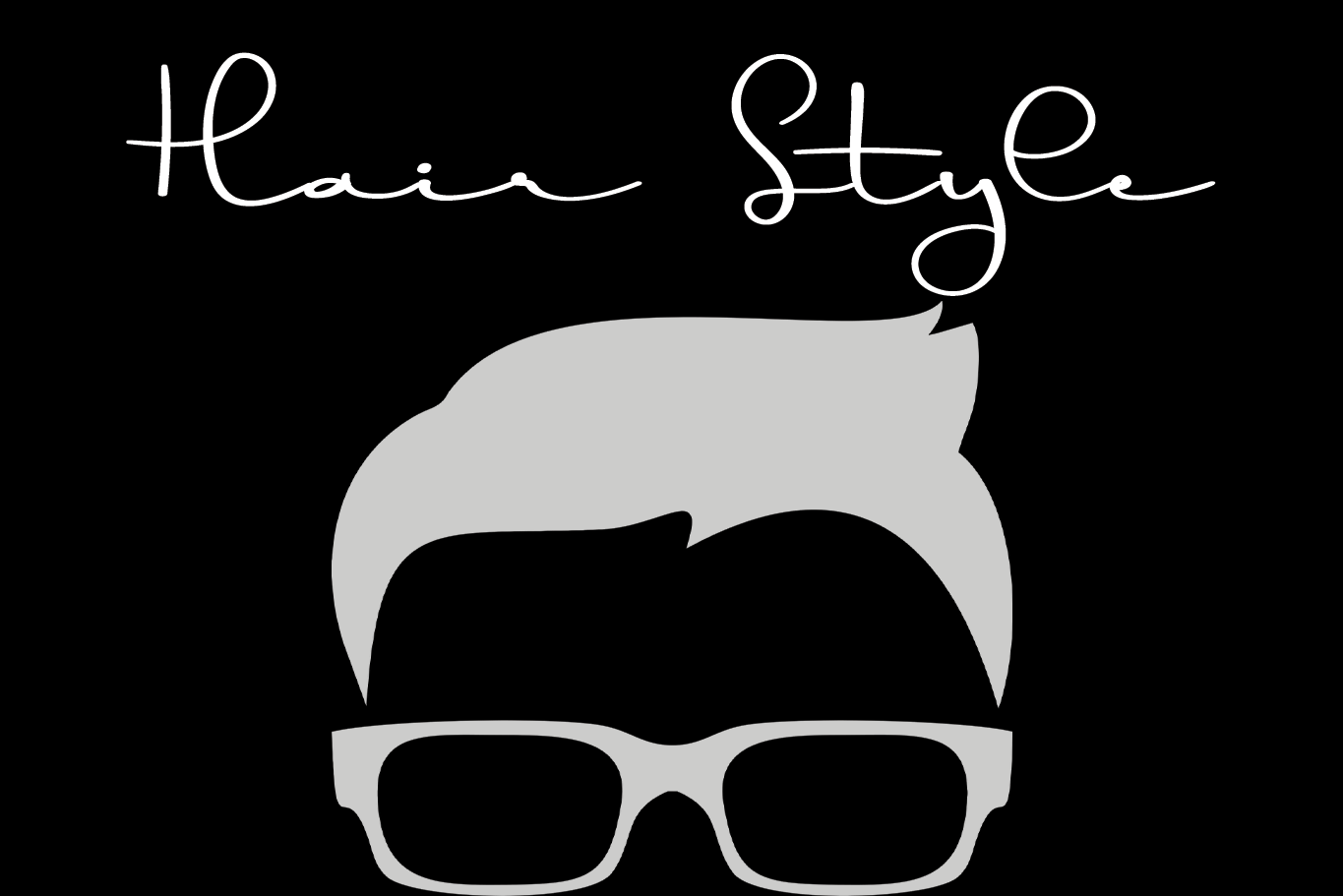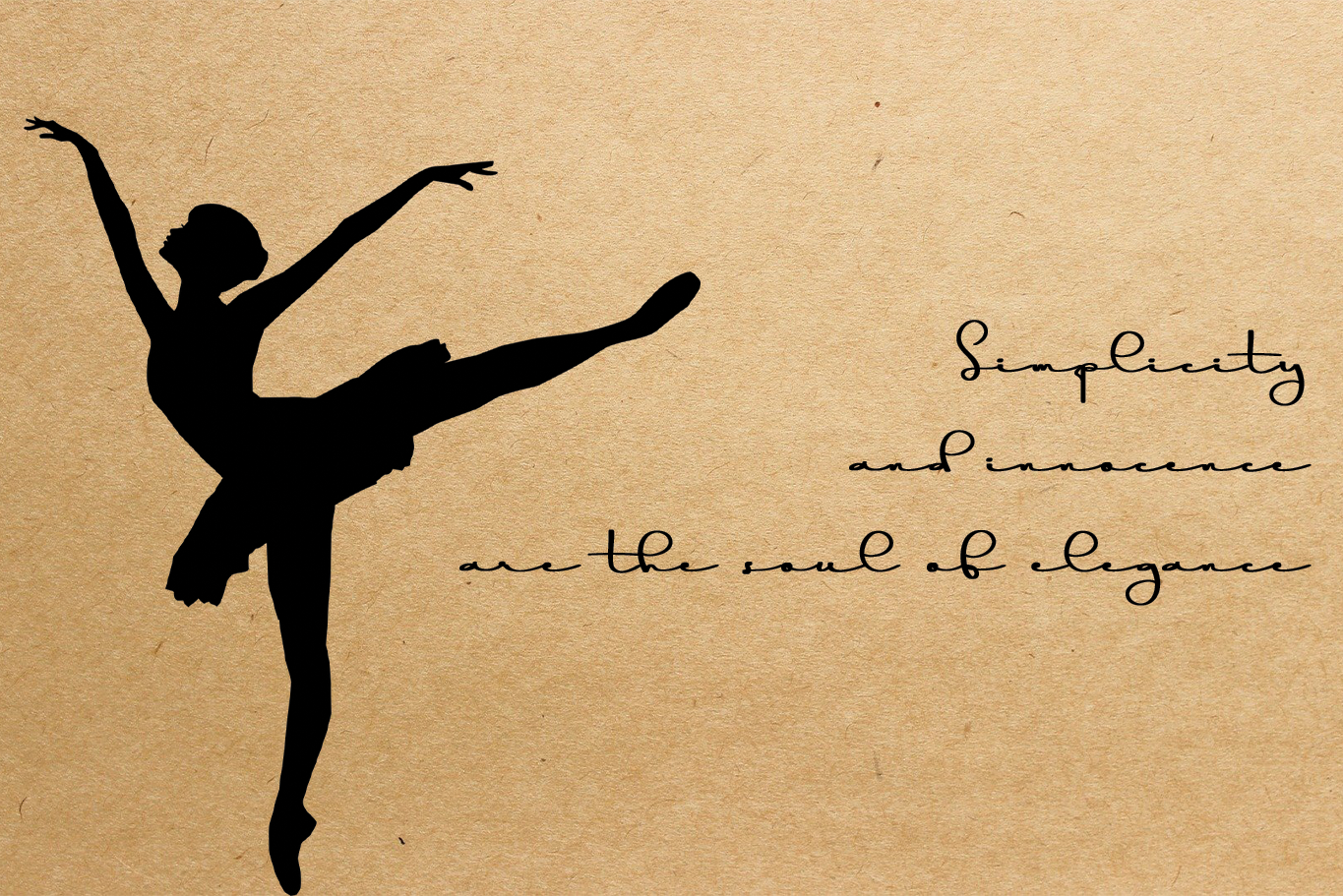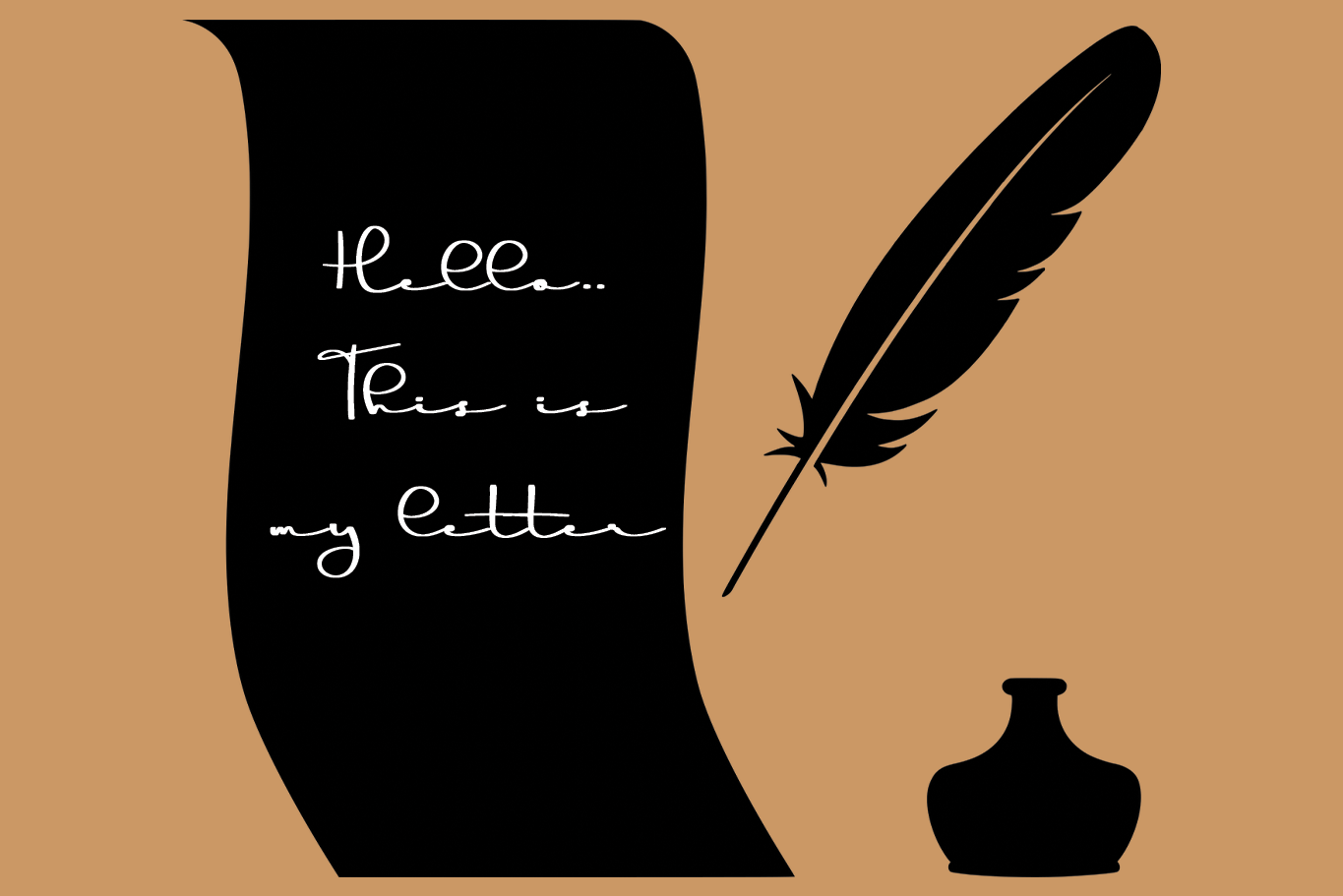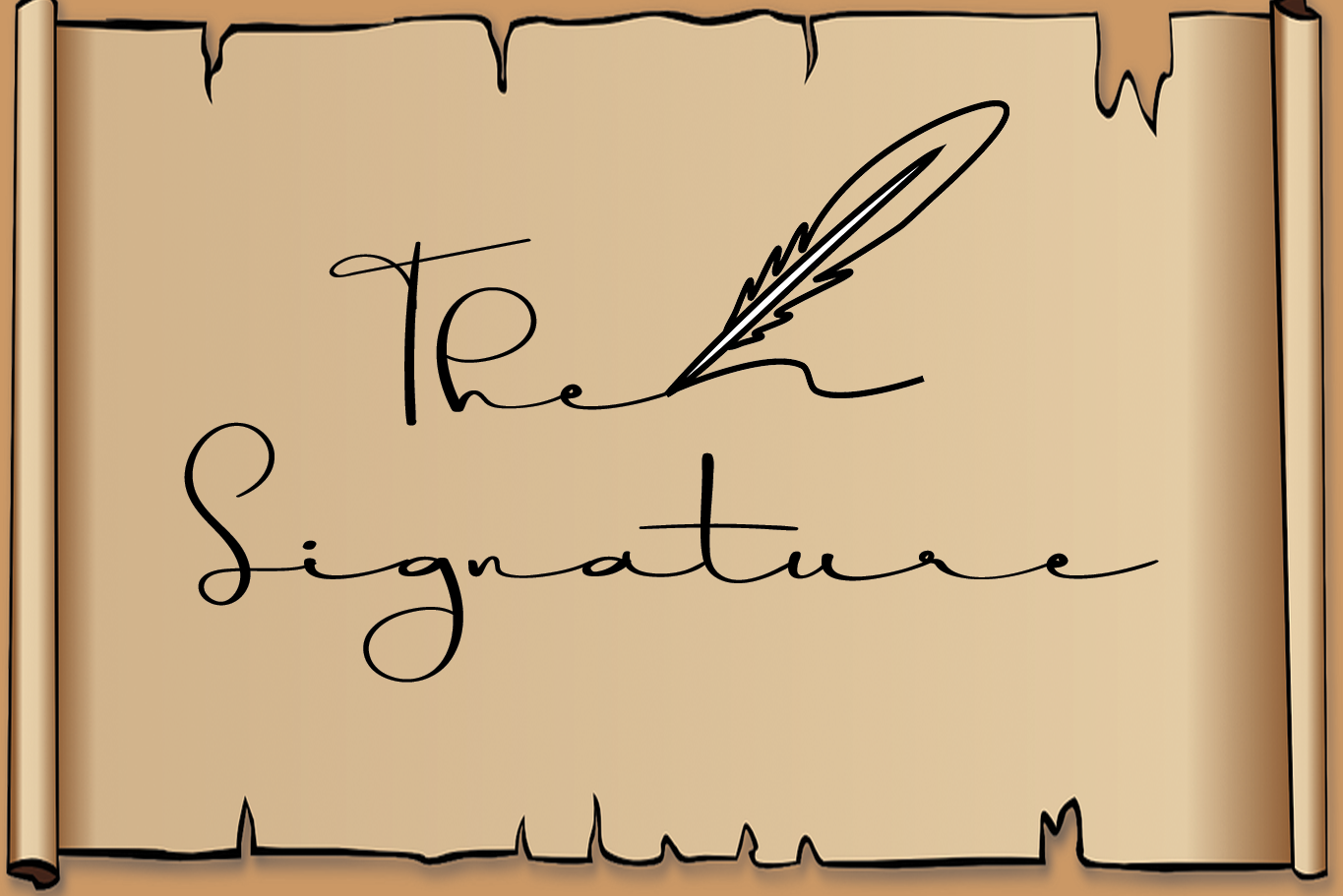
The Signature Font
The Signature Script Font
This is a lovely script font that looks exquisite and almost poetic. It is a perfect fit for elegant projects like wedding invitations, birthday cards, business cards, quotes, and more.